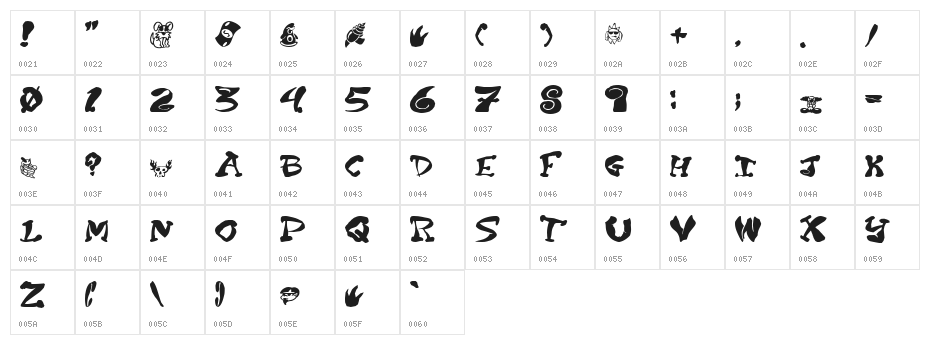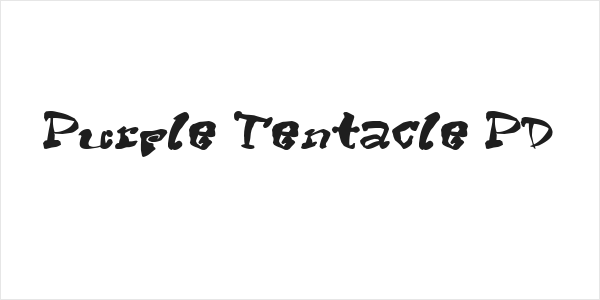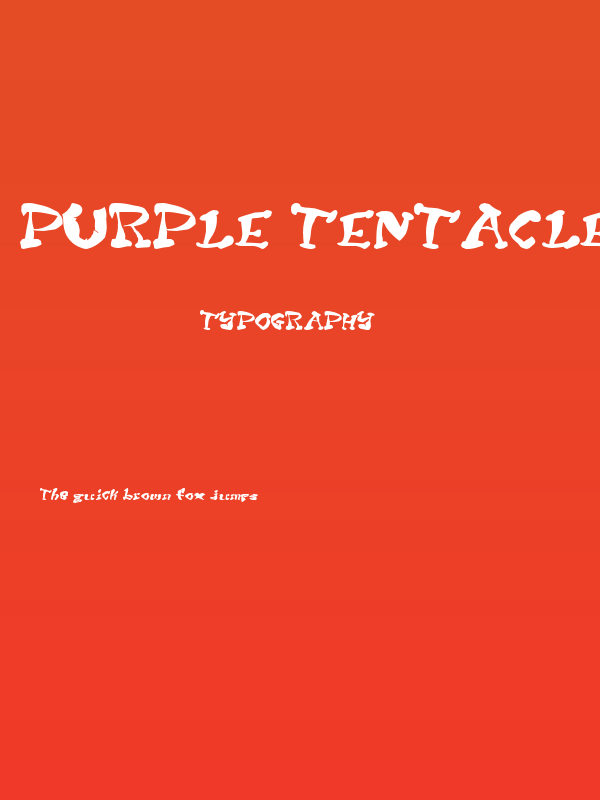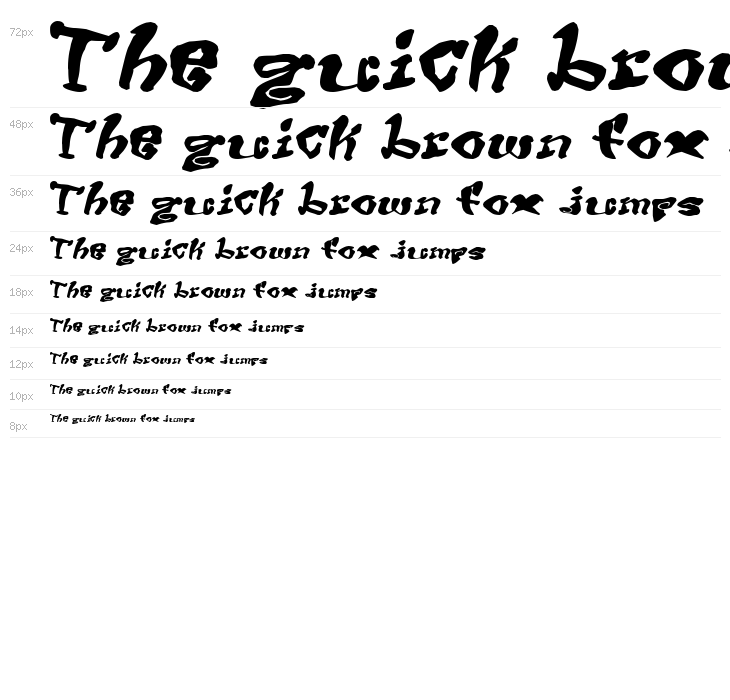
Purple Tentacle PD Font
Purple Tentacle PD Description
This font exhibits a playful and whimsical style, characterized by its bold, irregular shapes and organic flow. The letters have a hand-drawn appearance, with uneven edges and varying stroke thickness that give them a dynamic and lively feel. The uppercase and lowercase letters maintain a consistent style, while the numbers and special characters add to the font's quirky personality. The overall design is reminiscent of cartoon or comic book lettering, making it ideal for creative and informal projects.
| Overall Style | Whimsical, Playful, Cartoonish |
| Proposed Projects | Ideal for children's books, comic strips, playful branding, and creative posters. |